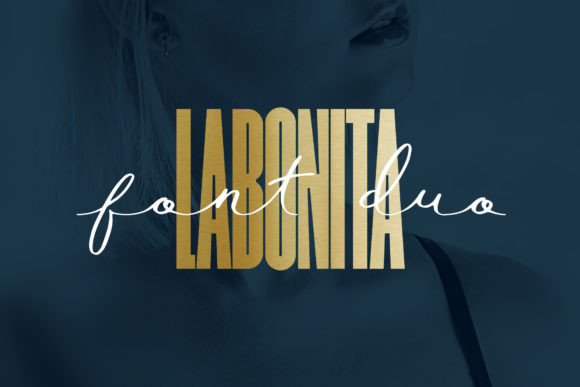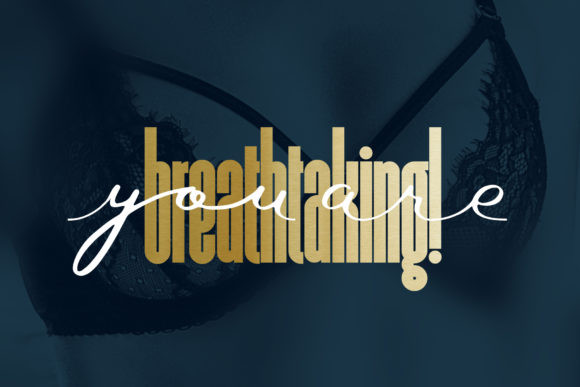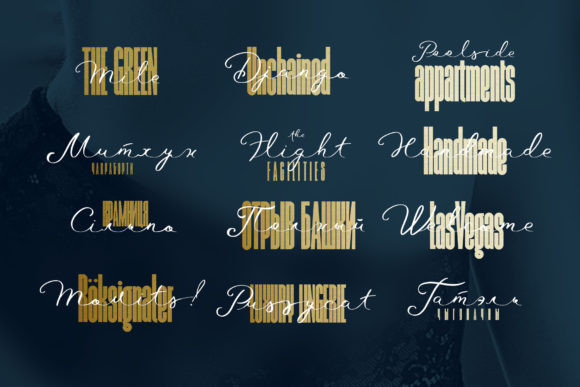
LaBonita Font
LaBonita is a spectacular duo font (sans serif and script). Incredibly versatile, this font fits a wide pool of designs, elevating them to the highest levels. Add this font to your favorite creative ideas and notice how it makes them come alive!